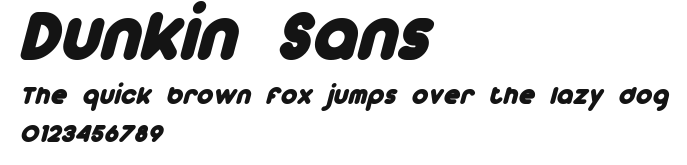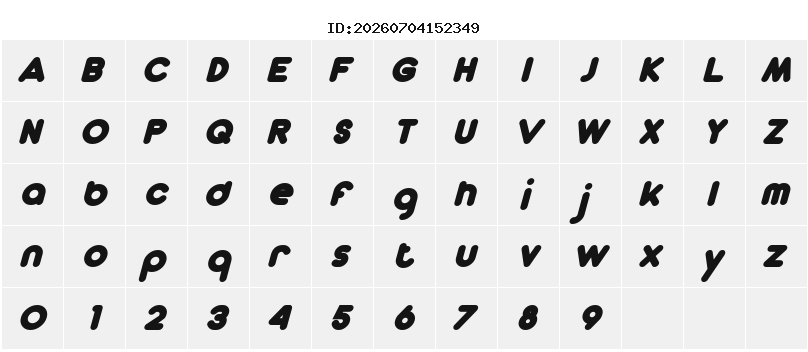
Dunkin Sans Preview
• Font Name: Dunkin Sans
• Designer: Neale Davidson
About Dunkin Sans.otf
Dunkin Sans.otf is a modern, elegant sans-serif font designed for ultimate readability and visual harmony. Perfect for branding, headlines, web design, and print materials.